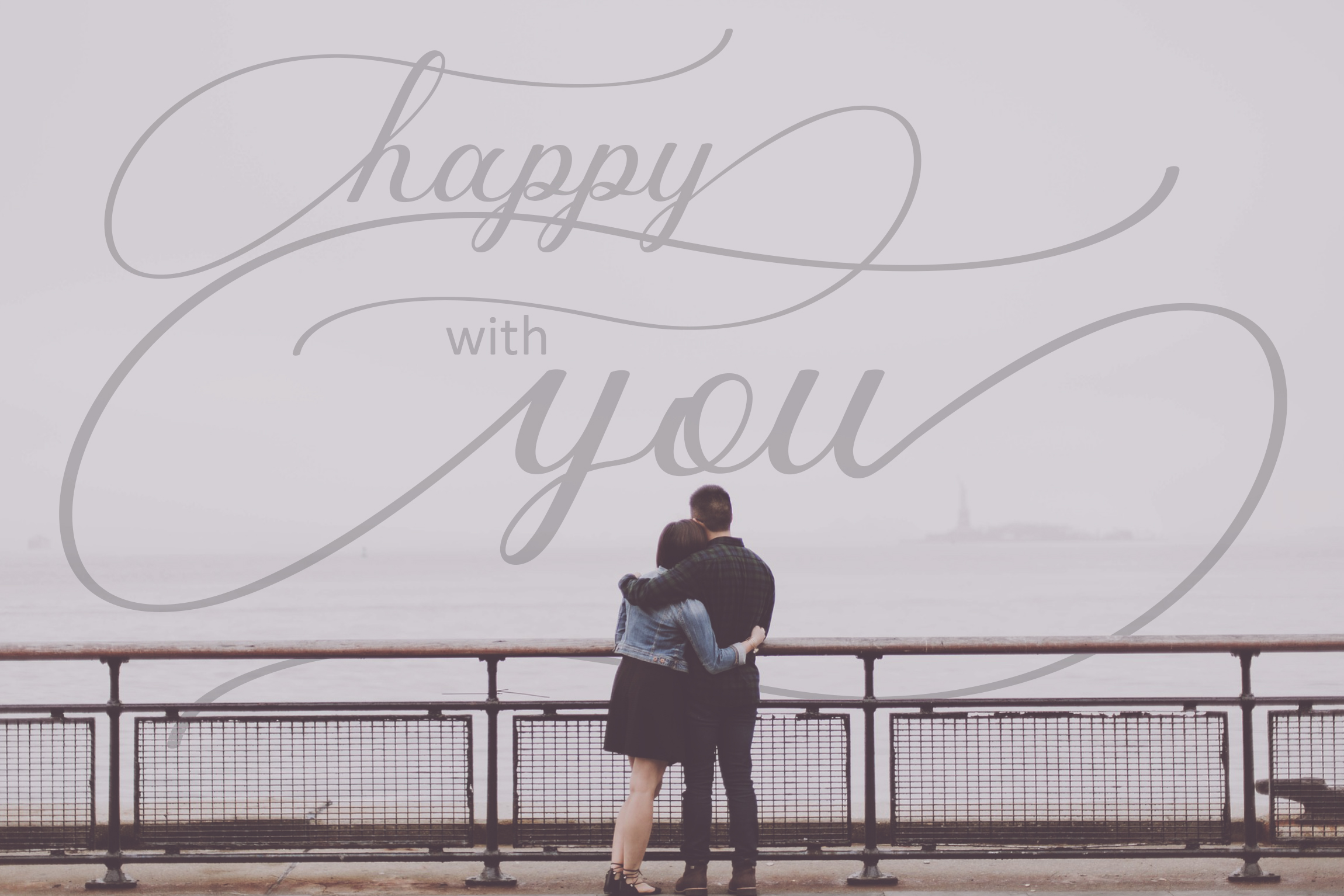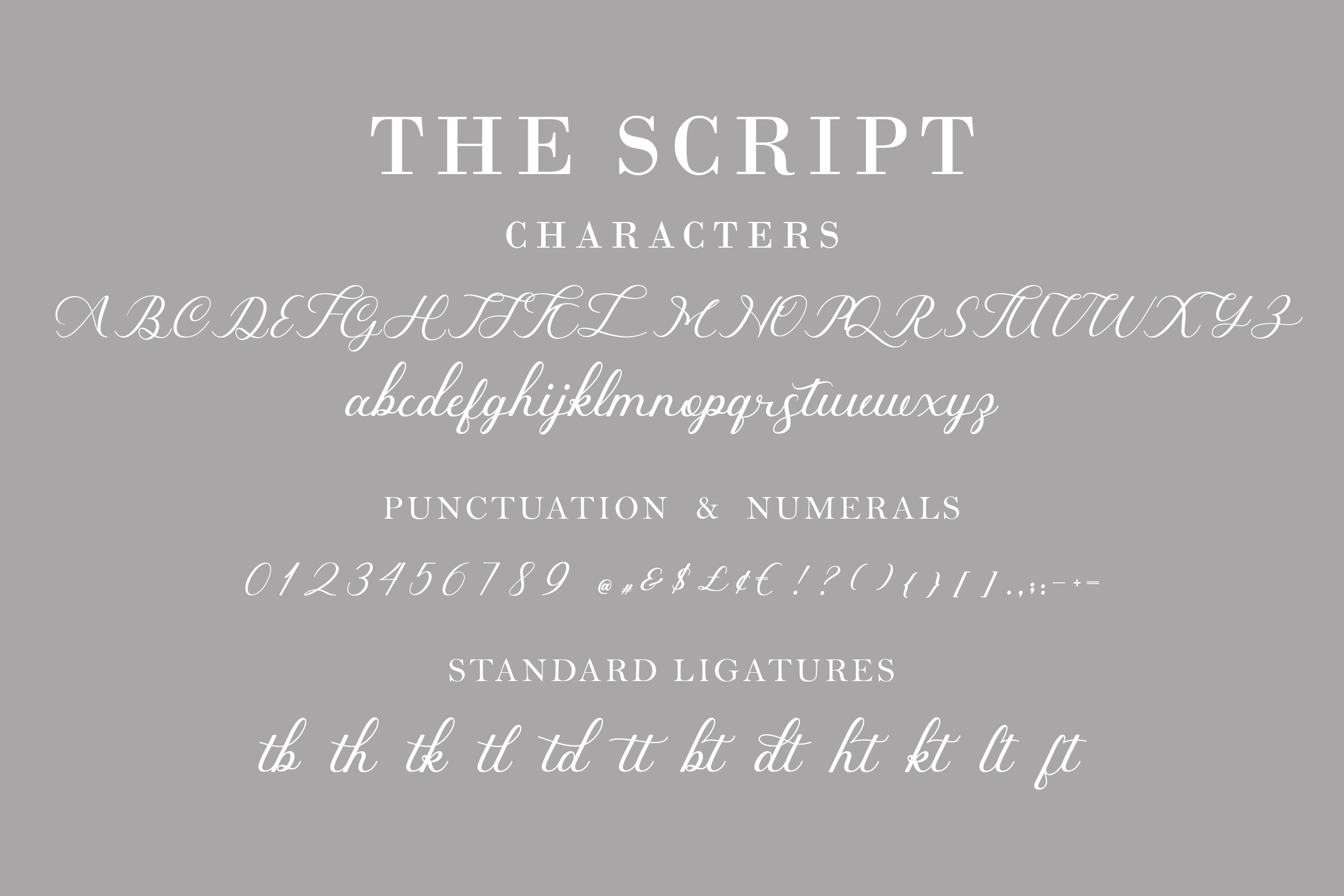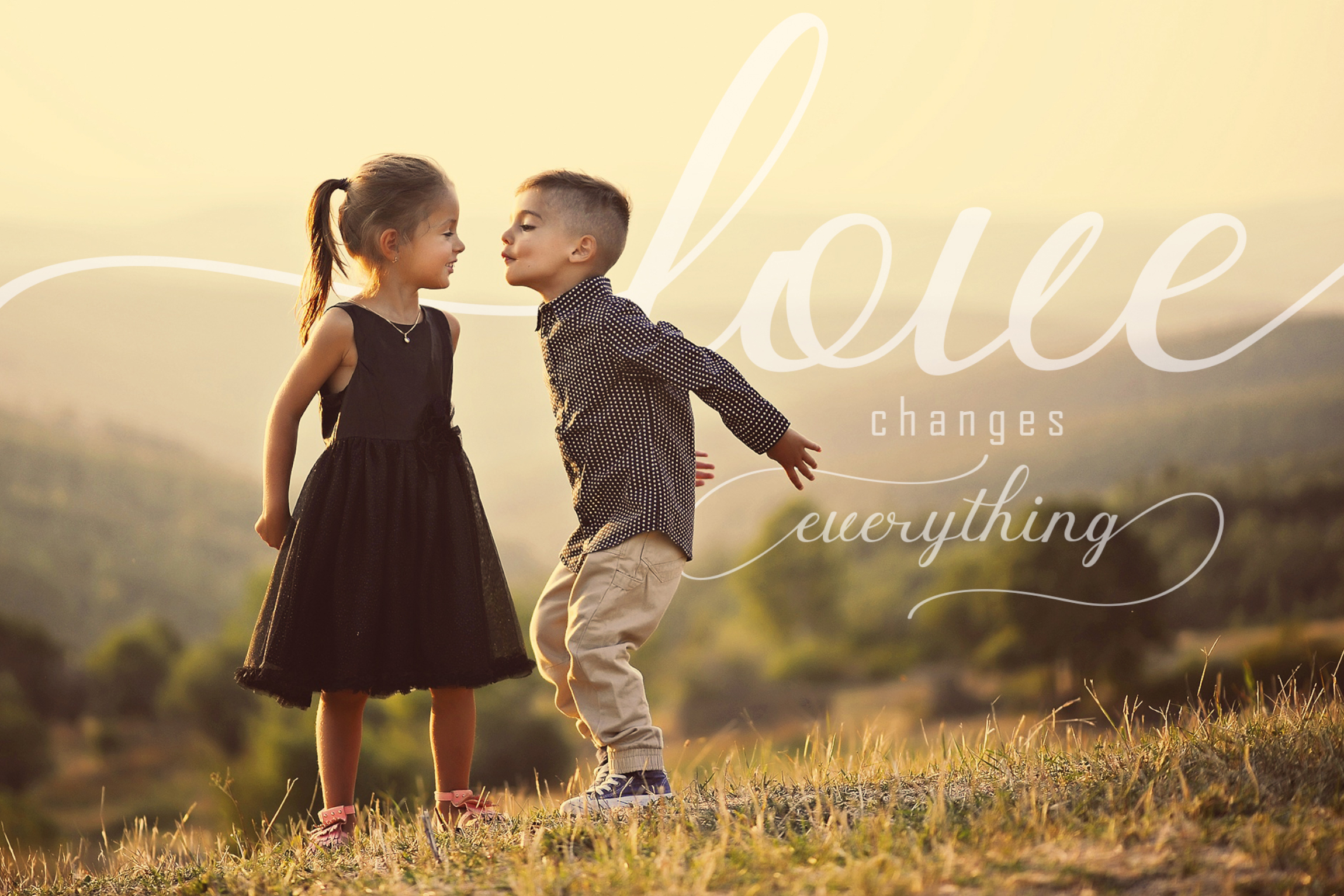
Indiana Font
About Indiana Font
This one should make your designs instantly professional and jaw-dropping! Be a perfect professional in a minute with the versatile and gorgeous Indiana script font, a modern and elegant typeface!